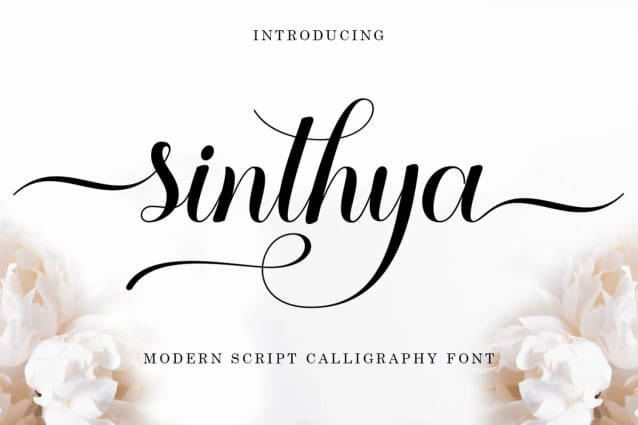
Sinthya Calligraphy Font
Sinthya Calligraphy Font – This font is designed in handwriting, and has a modern and unique calligraphic form, the style of writing is very natural.